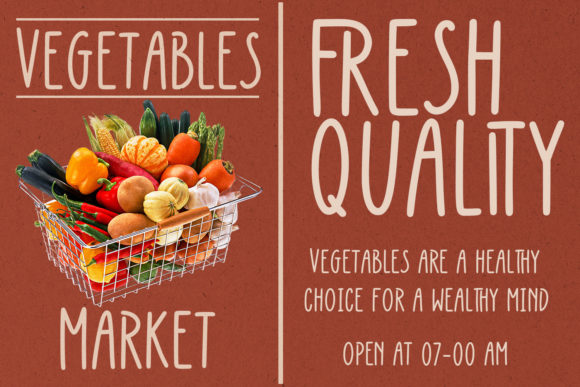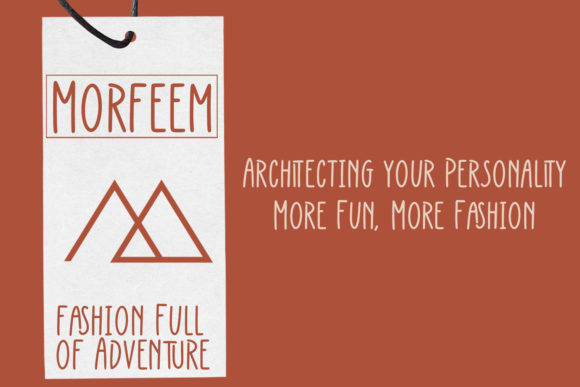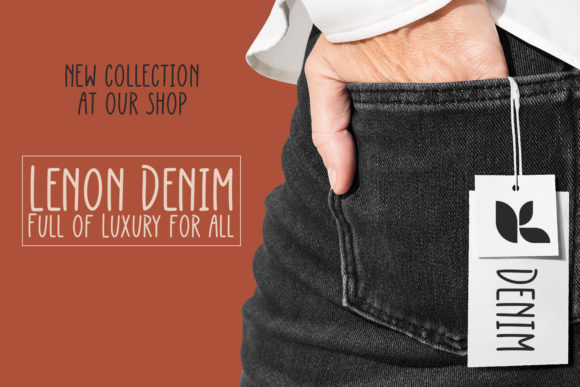
Introduction to Fraksen Font
Fraksen is a clean and natural handwritten font.
It is suitable for logotype, headline font, in corporate identity, brand identity, apparel industry, poster, music, movie, game, magazine, book, comic, cartoon, YouTube, Instagram, website, or any of your creative design projects .
Key Features of Fraksen Font